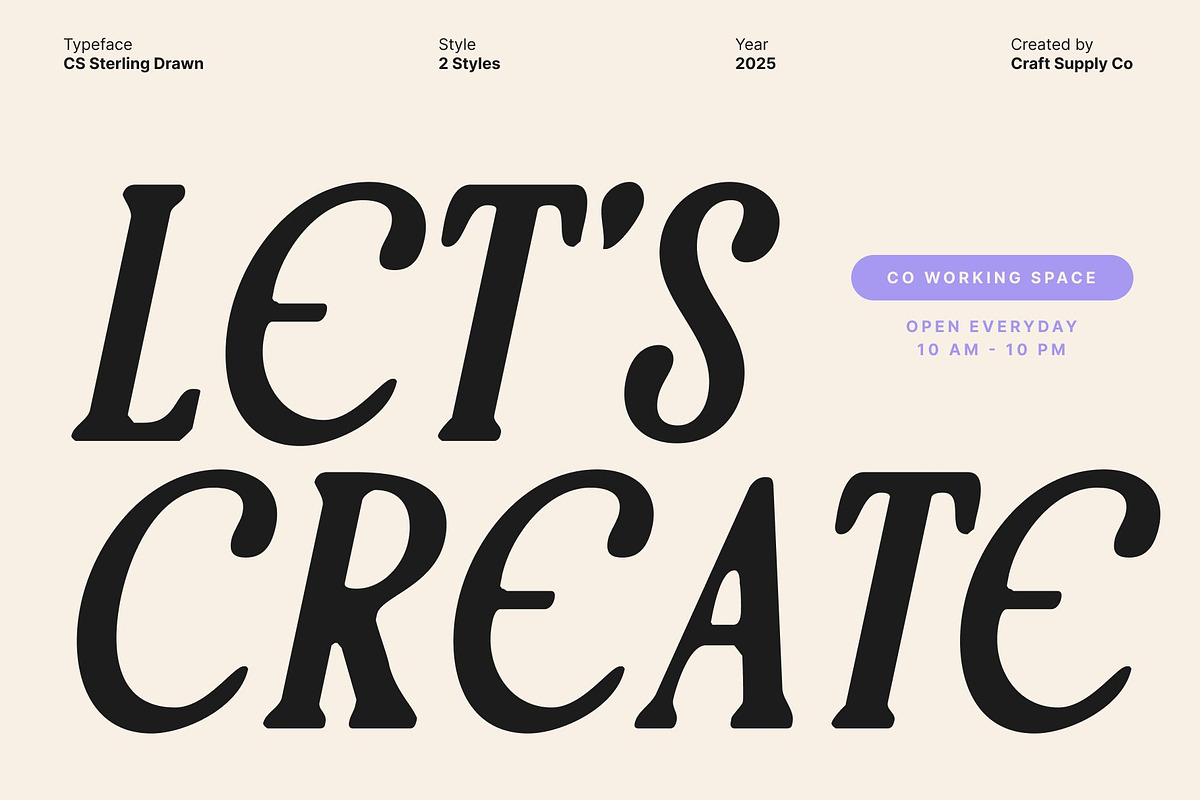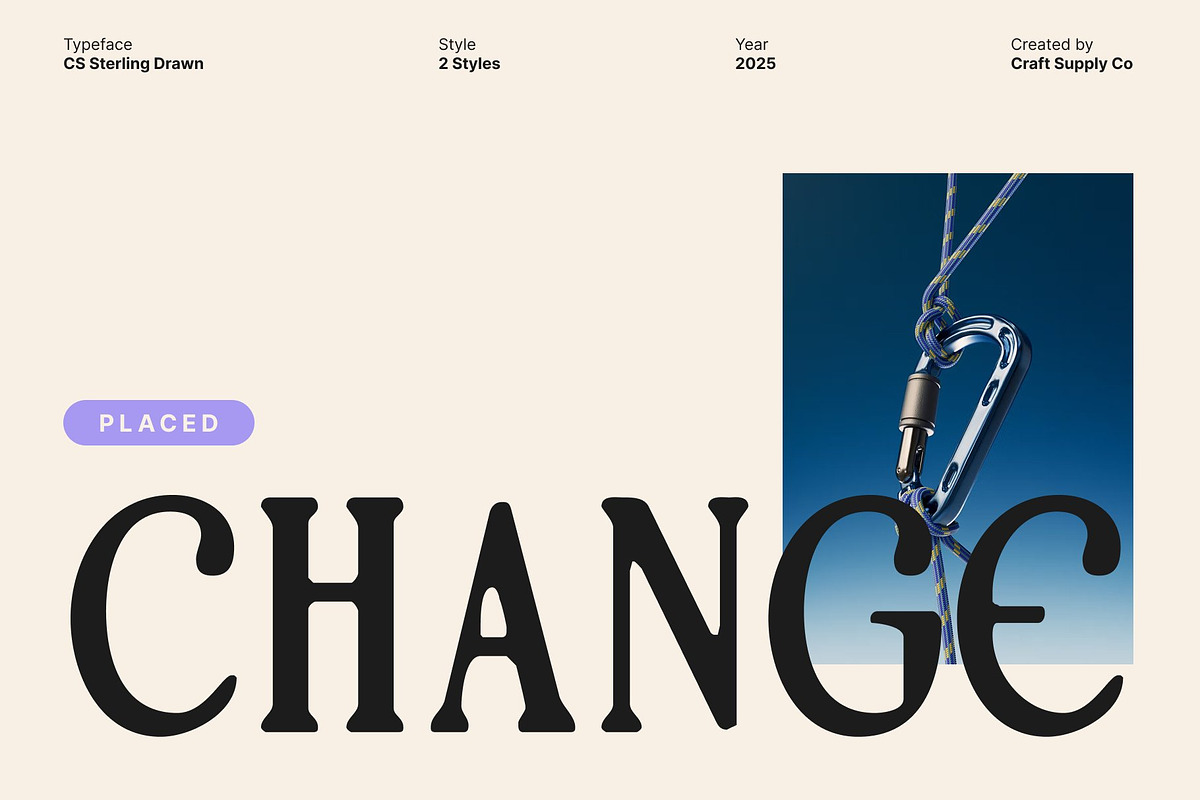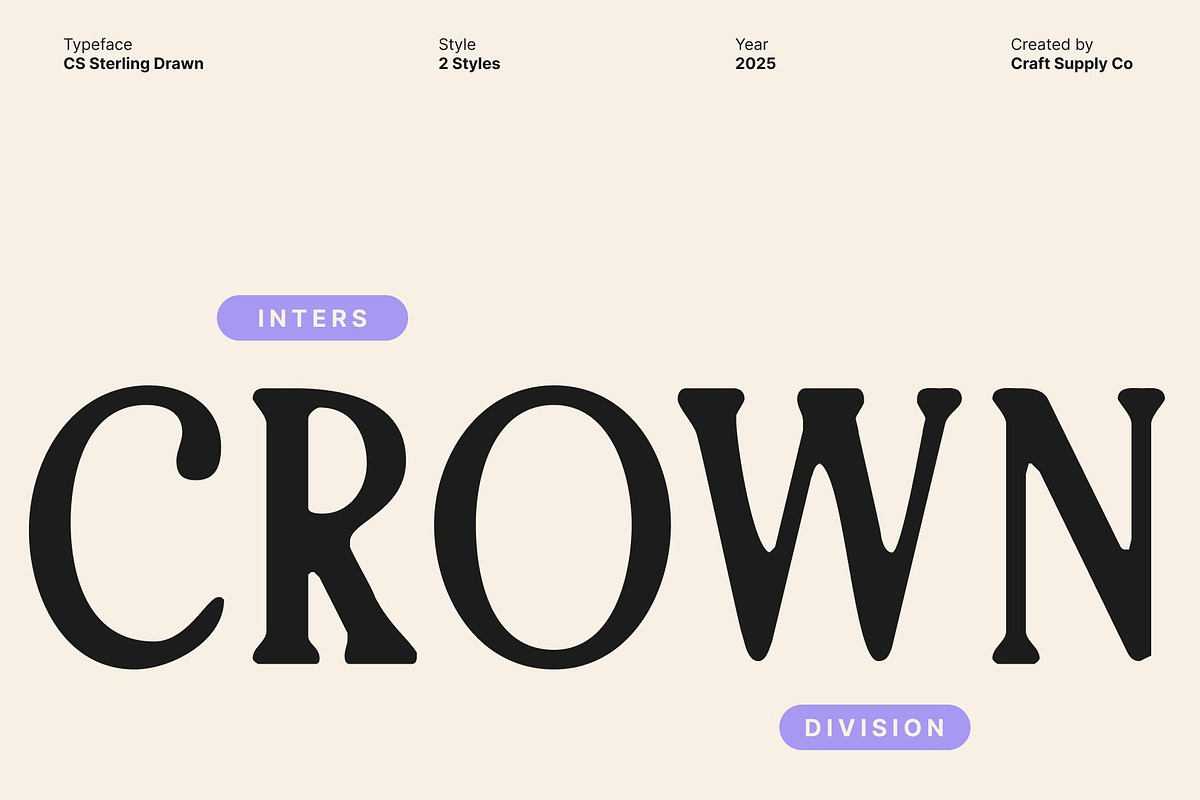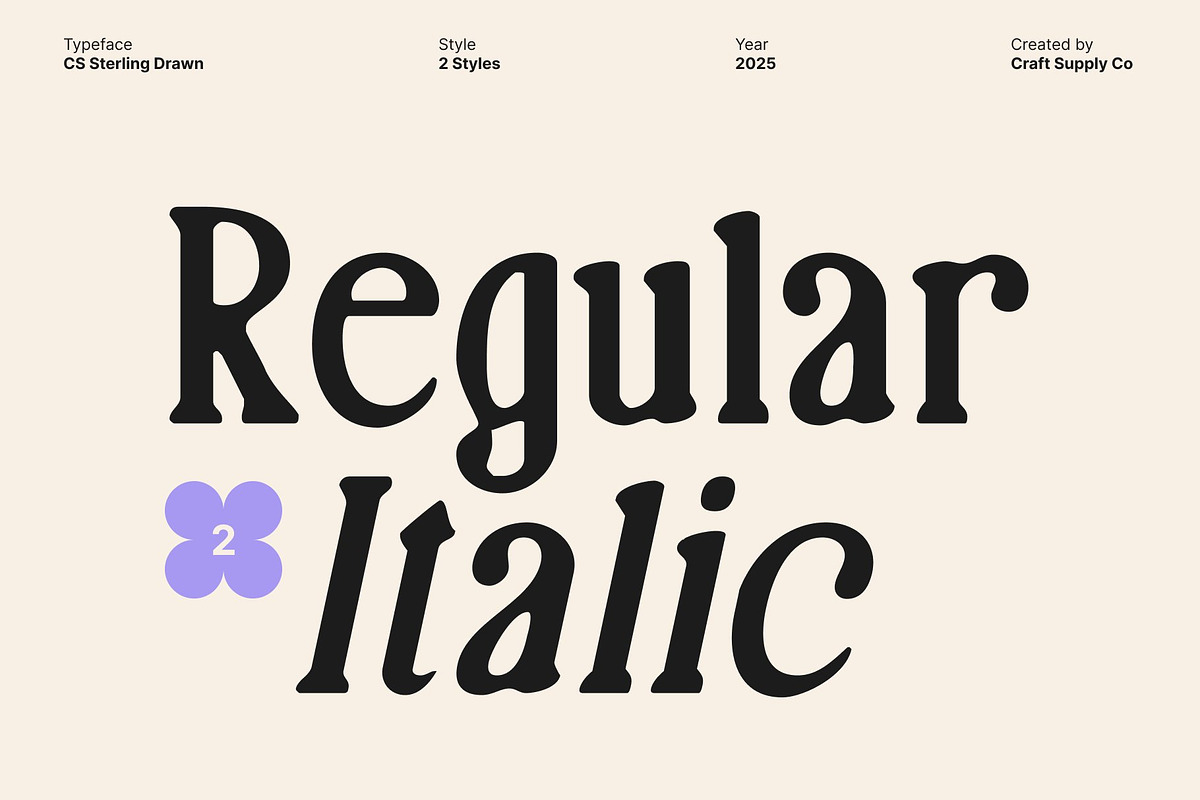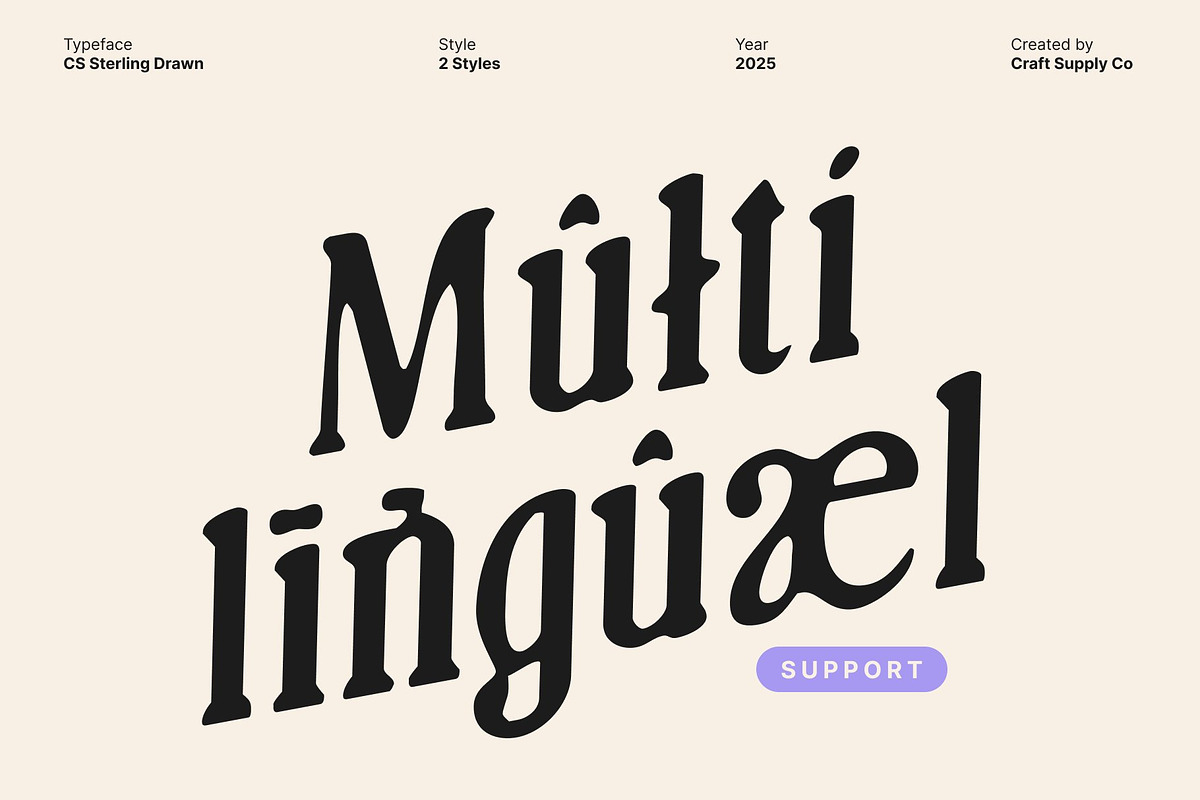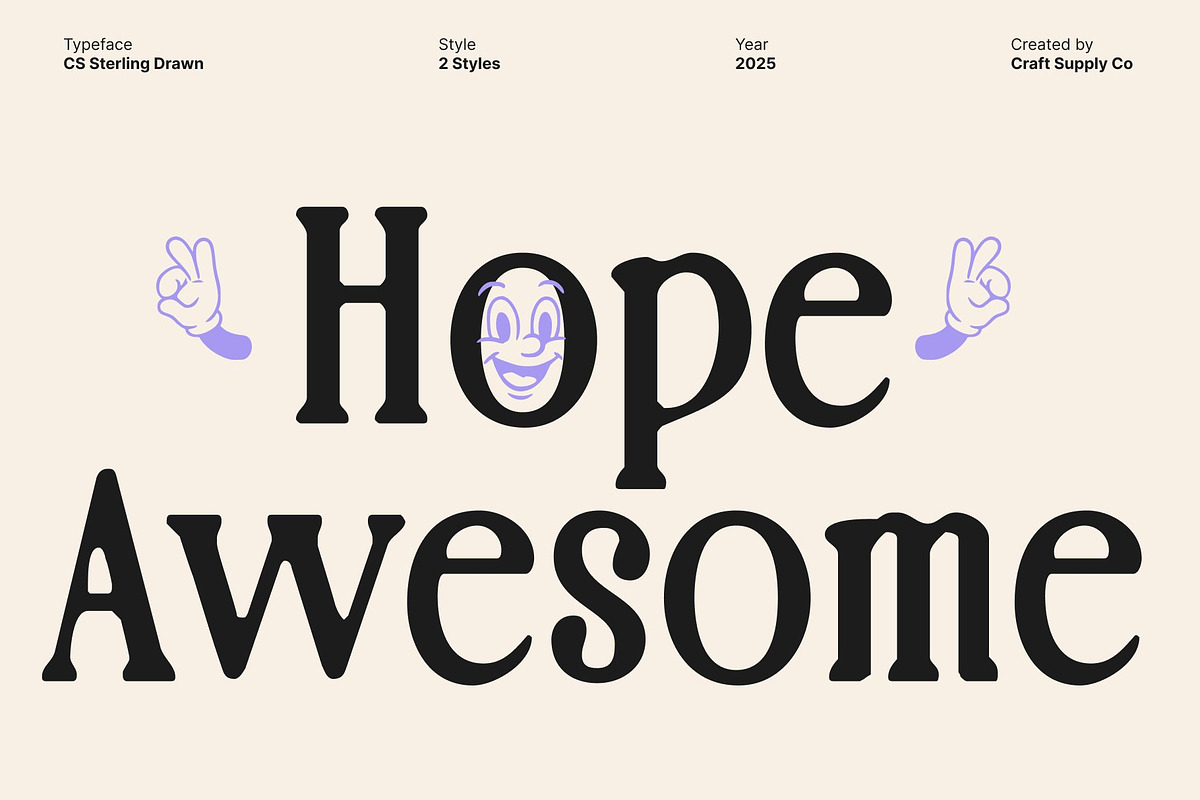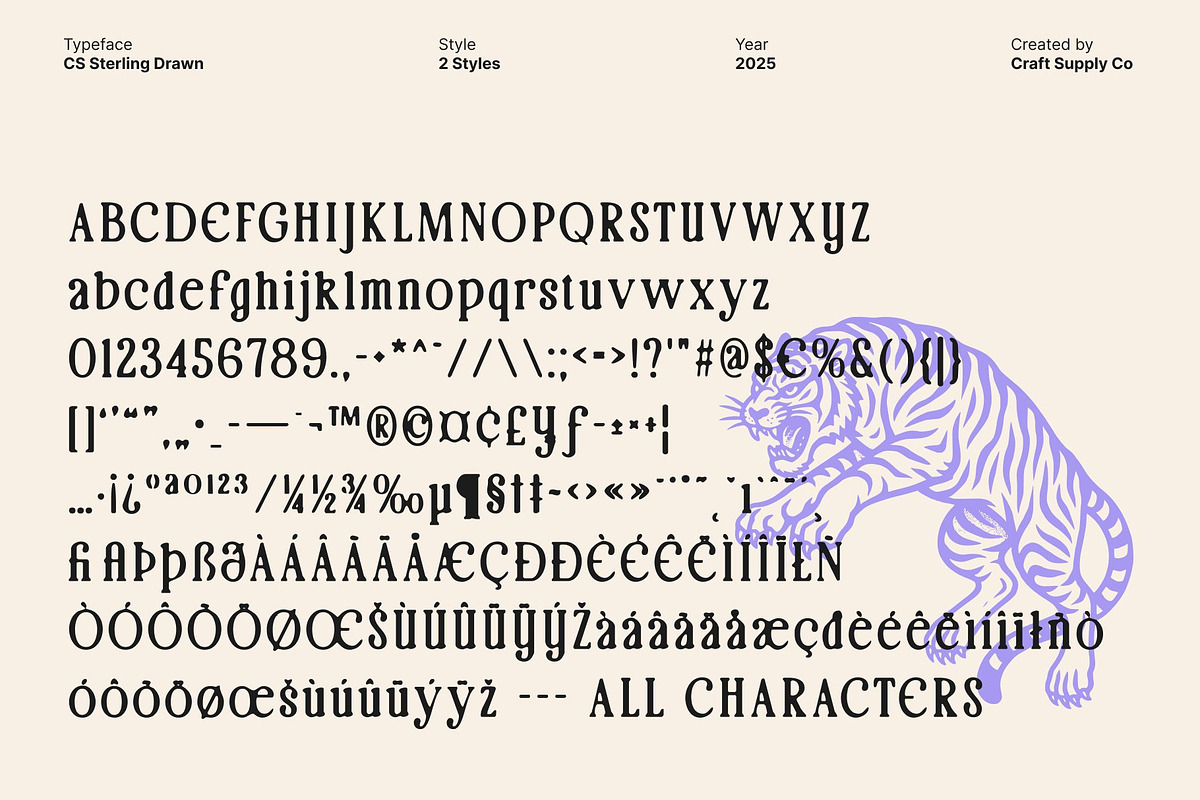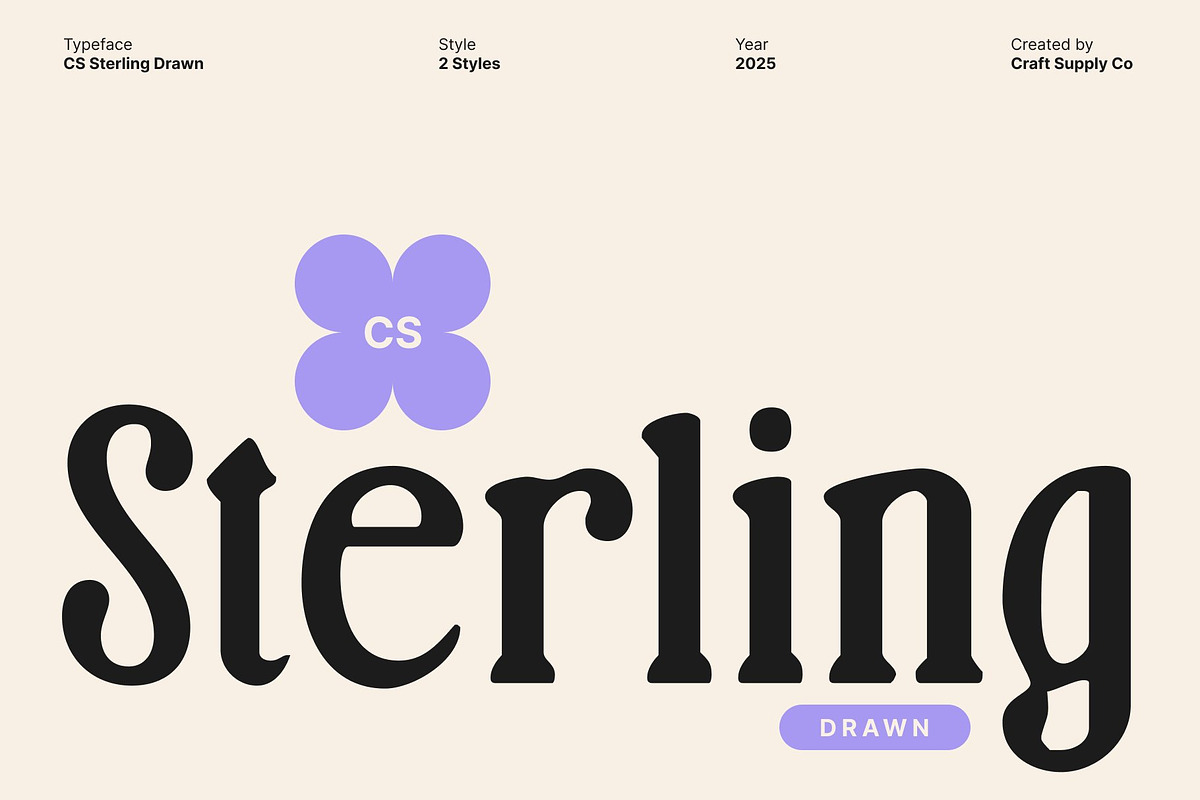
CS Sterling Drawn
CS Sterling Drawn – Classic Serif with Retro Charm
Bold Retro Character for Expressive Design This is a bold serif display font designed to evoke the warm nostalgia of the 90s. With its strong letterforms and charming drawn terminals, this typeface blends classic serif elegance with a handcrafted personality. Every stroke carries an expressive quality, making your designs feel more authentic, distinctive, and visually engaging.
Handmade Drawn Texture for a Unique Aesthetic The signature drawn texture enhances the personality of this font. Each character feels organic and artisanal, adding warmth and visual richness. This handcrafted look infuses your projects with authenticity, making the font perfect for designs that aim to feel personal, tactile, and expressive.
Perfect for Nostalgic Branding and Creative Projects This font brings a delightful retro flair that works beautifully in branding, posters, logos, packaging, and editorial layouts. Its bold serif structure ensures clarity and impact, while the handmade finish adds creative flair. Designers looking to convey vintage inspiration or 90s-inspired aesthetics will find this font both versatile and captivating.
A Versatile Serif for Modern and Retro Use Despite its retro influence, this font remains highly adaptable for modern design needs. Its approachable style works across various themes playful, artistic, classy, or nostalgic. This font makes it easy to create standout visuals that combine boldness, personality, and expressive craftsmanship.
- CS Sterling Drawn Regular
- CS Sterling Drawn Italic